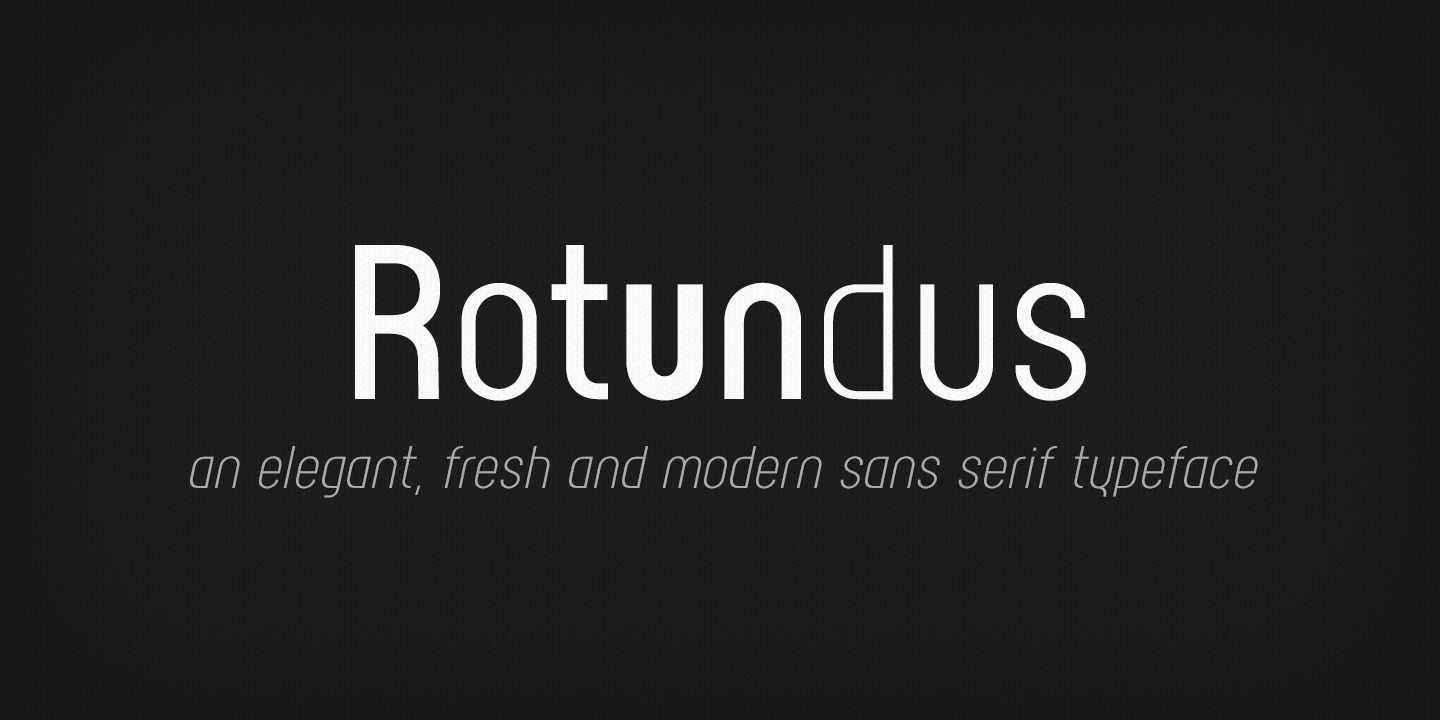
Rotundus Font is perfect for artisanal bakery branding, cozy café signage, warm family restaurant menus, rustic farmhouse product packaging, handcrafted food labels, community gathering space communications, traditional pottery workshop materials, wholesome organic market branding, friendly neighborhood business signage, and heartwarming local community promotions.
What makes Rotundus Font so exciting is its remarkable ability to embody the comforting warmth and generous spirit of traditional craftsmanship through beautifully rounded letterforms that seem shaped by the same gentle hands that knead fresh bread and create homemade goods with patient care and genuine love for their craft. This font captures the essence of artisanal quality and community connection, featuring pleasantly curved characters that appear crafted by skilled artisans who understand that the most satisfying creations come from taking time to do things properly and with authentic care. The generously rounded letter shapes create an atmosphere of wholesome authenticity and welcoming hospitality, making every word feel like it carries the warmth of home kitchens and the promise of discovering products made with genuine dedication to quality and community service.
The Rotundus Font family includes Light, Regular, Medium, Bold, and Extra Bold weights, along with soft variations and artisan decorative elements. Each style maintains the font's distinctive rounded character while offering versatility for different artisanal applications, from gentle product descriptions to bold celebration headlines that announce the arrival of handcrafted goods and community-centered businesses that prioritize quality over quantity.
This heartwarming typeface brings authentic artisanal aesthetics to contemporary design projects. The Rotundus Font Free Download offers designers an invaluable resource for creating memorable brand identities that communicate warmth, craftsmanship, and community connection. Whether you're developing local bakery branding, designing artisan product materials, or creating community-focused business communications, this font delivers unmatched warmth and artisanal credibility.
The lovingly crafted letterforms in Rotundus Font feature generous curves and balanced proportions that mirror the patient rhythm of traditional craftsmanship and the satisfied fullness that comes from creating products with authentic care and attention to detail. Each character has been designed to maintain perfect readability while expressing the wholesome satisfaction and community pride that define authentic artisanal businesses. The font's distinctive personality makes it ideal for applications requiring genuine craftsmanship authority and community appeal.
Artisan business and community professionals appreciate how Rotundus Font effortlessly communicates quality, authenticity, and community connection while appealing to customers seeking genuine handcrafted experiences and products that reflect the kind of personal attention and traditional values that make local businesses essential pillars of thriving neighborhoods. The comprehensive character set includes artisan symbols, community decorations, craft elements, and extensive international language support, ensuring global compatibility while preserving its distinctive rotundus identity. This makes it an invaluable resource for bakeries, craft businesses, local restaurants, and any organization seeking typography that embodies the fundamental values of artisanal excellence, community service, and the kind of generous spirit that transforms ordinary commercial transactions into meaningful relationships built on trust, quality, and the understanding that the best things in life are created by people who take pride in their work and care deeply about serving their communities with products that nourish both body and soul through the timeless tradition of handcrafted excellence.